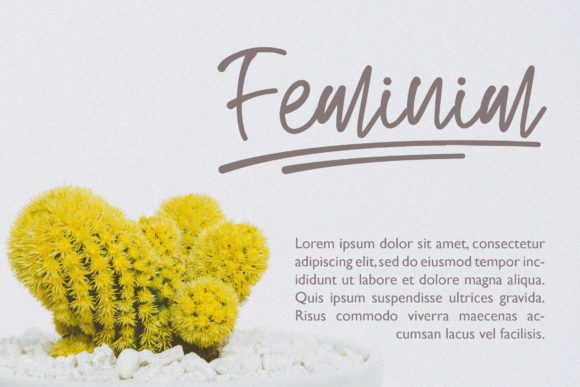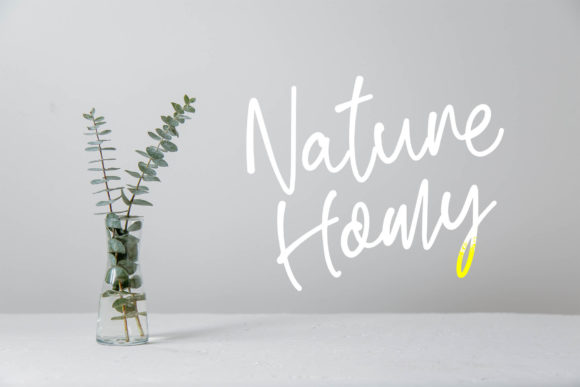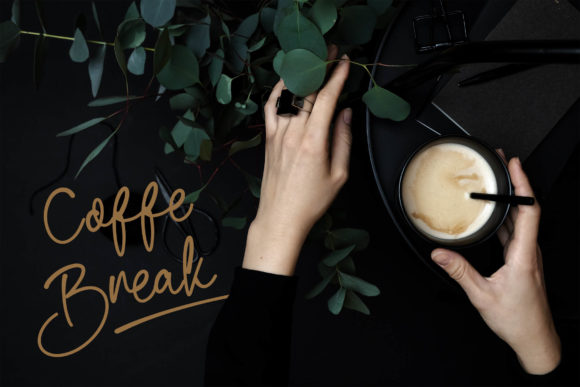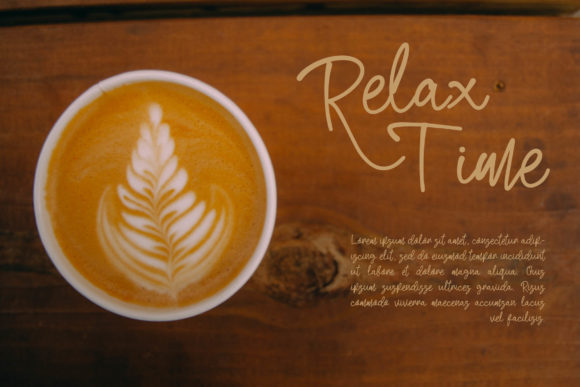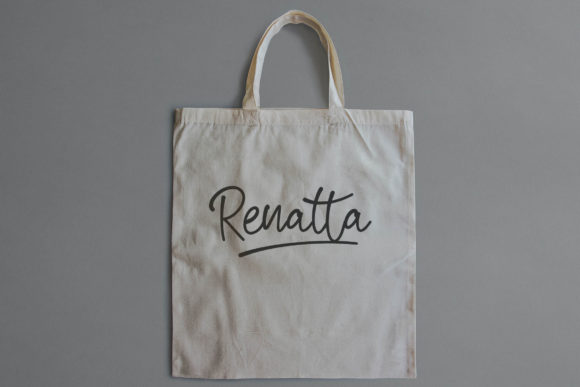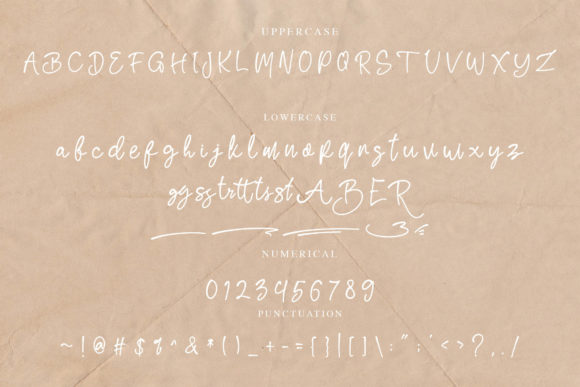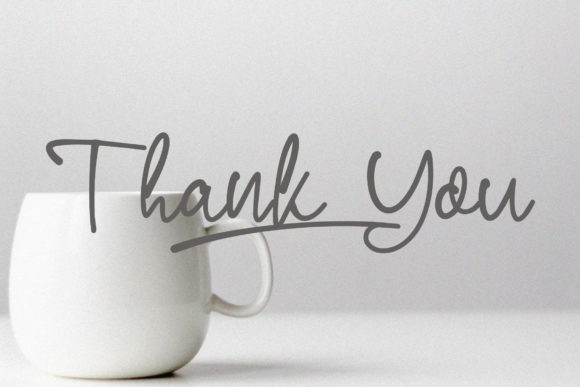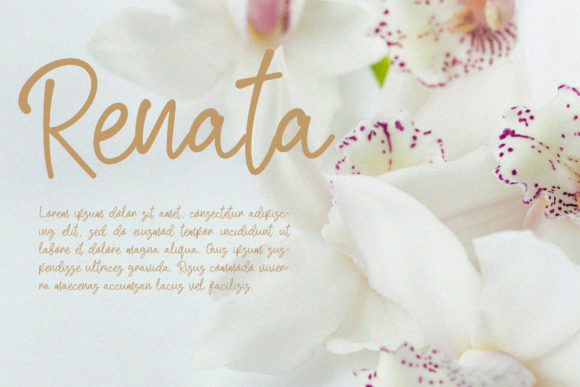
Renatta Script Font
About Renatta Script Font
Renatta Script is a beautiful, well balanced and vintage styled script font. It is defined by smooth curves and is perfect for fashion branding or editorial designs. Renatta Script is PUA encoded which means you can access all of the glyphs and swashes with ease!